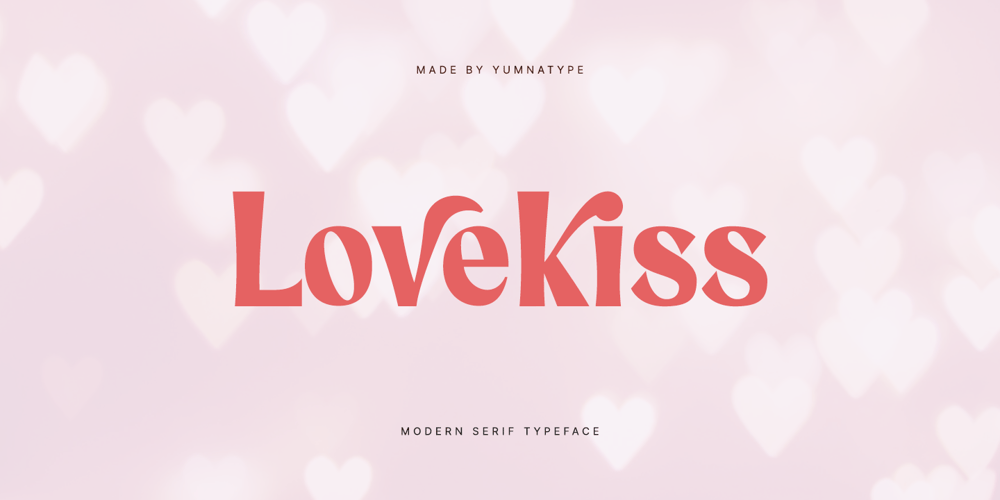
Lovekiss Font Family was designed by Donis Miftahudin and published by Yumna Type. Lovekiss contains 1 styles and family package options. Lovekiss is a captivating serif font that seamlessly blends classic elegance with modern flair. Crafted in a contemporary style, this font exudes sophistication and charm. With its clean lines and balanced proportions, Lovekiss strikes the perfect balance between tradition and innovation. Each letter is meticulously crafted with subtle detailing and graceful curves, creating a sense of timeless beauty that is both versatile and impactful. Despite its classic serif roots, Lovekiss is designed with a modern twist that sets it apart from traditional fonts. Its sleek lines and minimalist aesthetic give it a contemporary edge. In addition, enjoy the features here.Features: Ligatures Stylistic Sets Multilingual Supports PUA Encoded Numerals and Punctuations Lovekiss fits in headlines, logos, posters, flyers, branding materials, greeting cards, print media, editorial layouts, and many more designs. Find out more ways to use this font by taking a look at the font preview.Thanks for purchasing our fonts. Hopefully, you have a great time using our font. Feel free to contact us anytime for further information or when you have trouble with the font. Thanks a lot and happy designing.